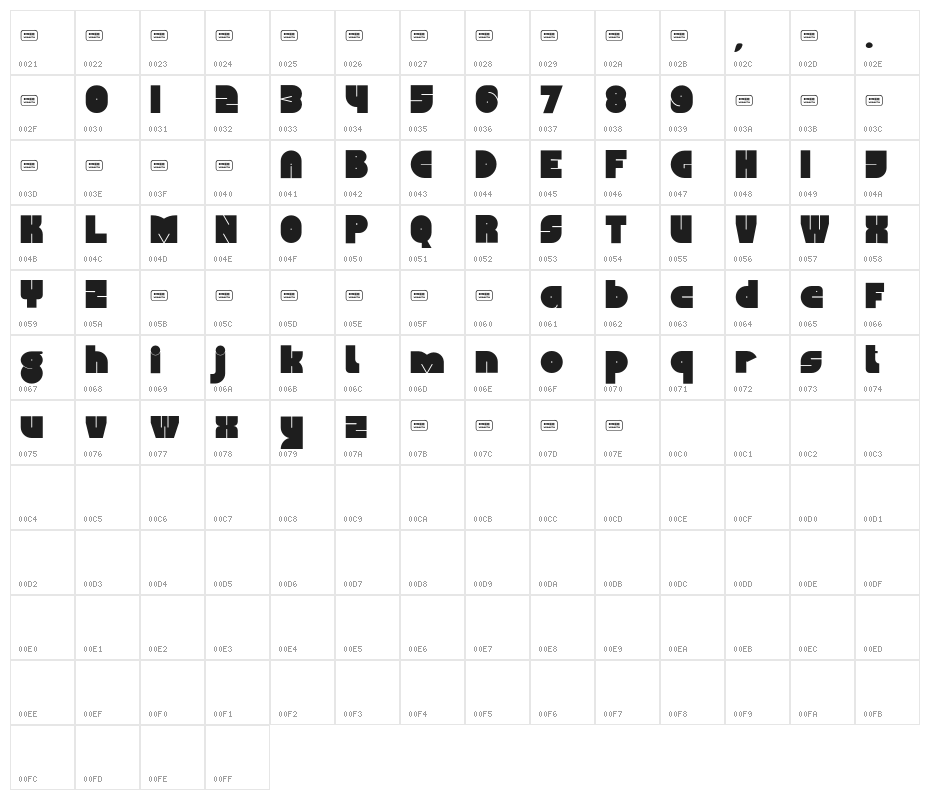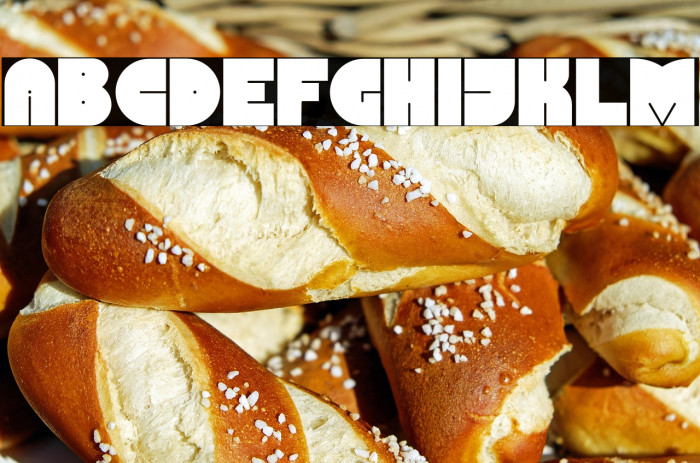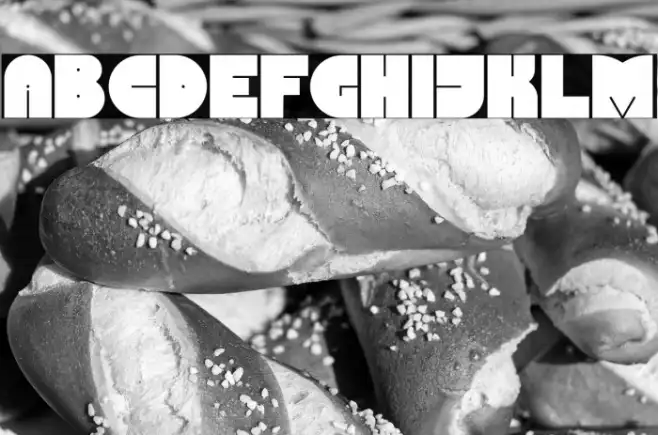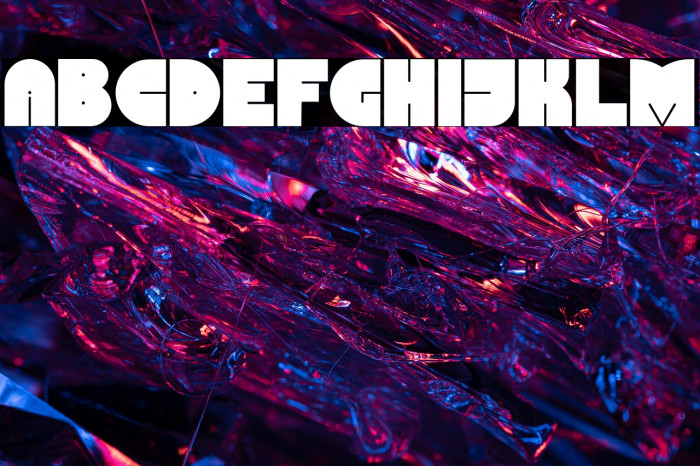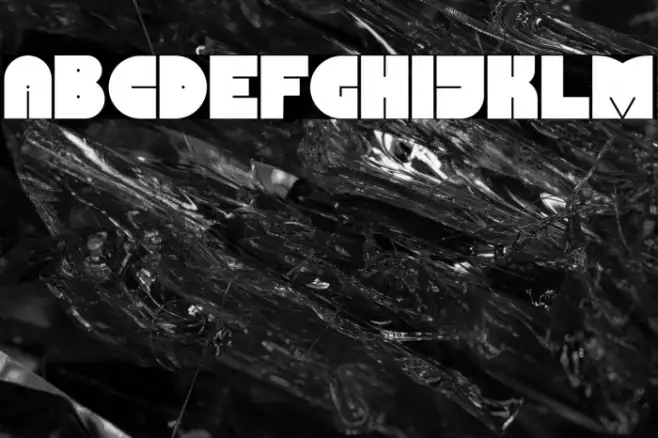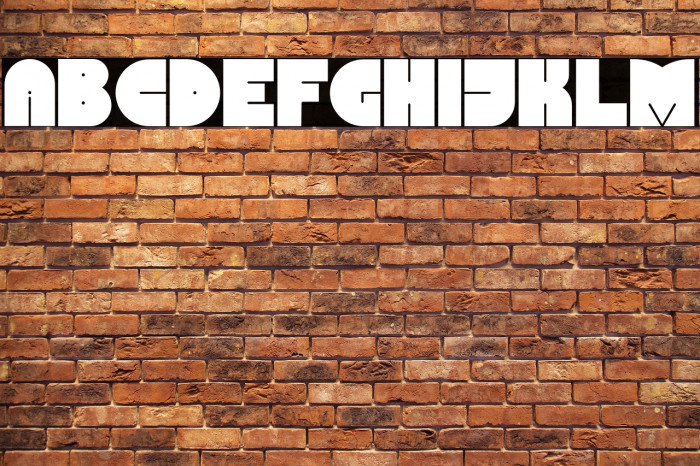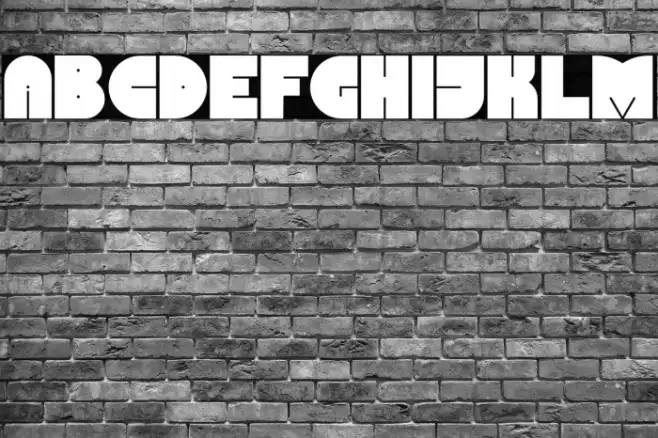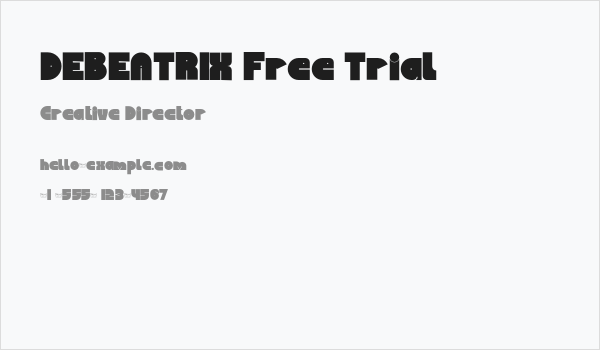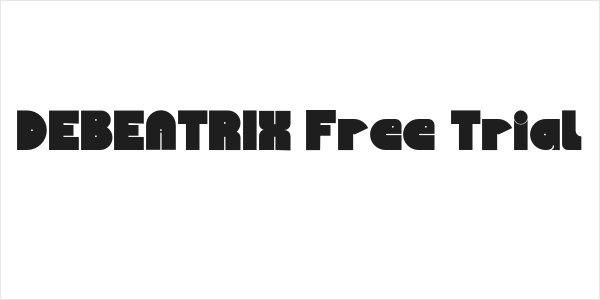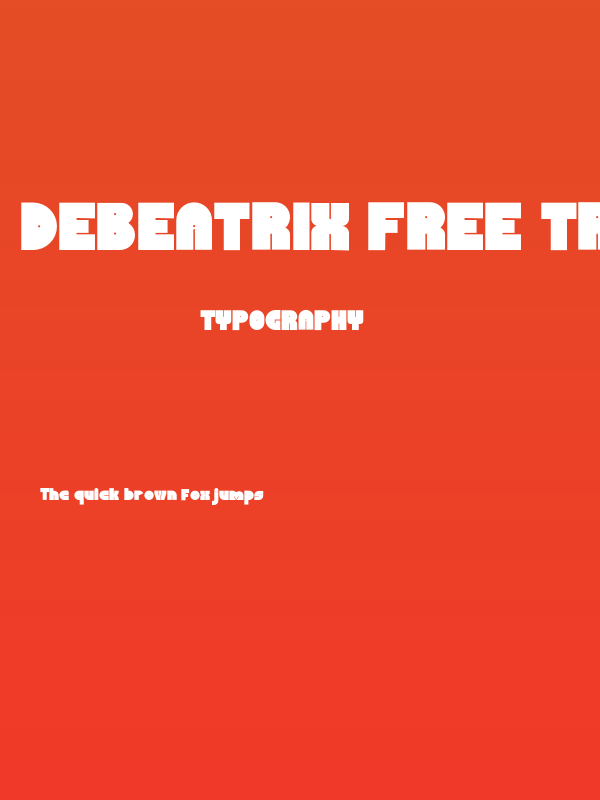
DEBEATRIX Free Trial Font
DEBEATRIX Free Trial Description
This font features a bold and geometric design, characterized by its thick, blocky letters with minimal curves. The uppercase letters are particularly striking, with a strong presence and unique shapes that create a modern and futuristic feel. The lowercase letters maintain the boldness, offering a cohesive look across the alphabet. Numbers and special characters follow the same design principles, ensuring consistency. The font's style is ideal for making a strong visual impact, with its high contrast and wide character spacing contributing to its readability and distinctiveness.
| Proposed Projects | Ideal for branding, poster design, headlines, and any project requiring a strong visual impact. |